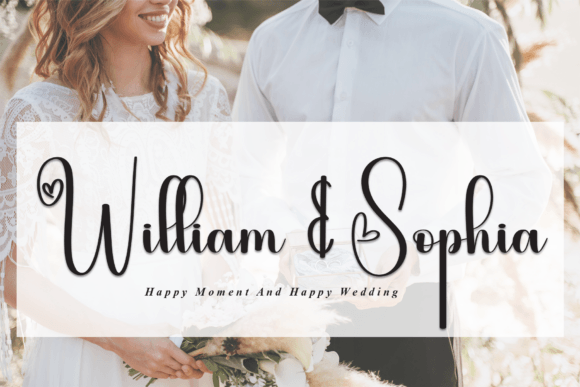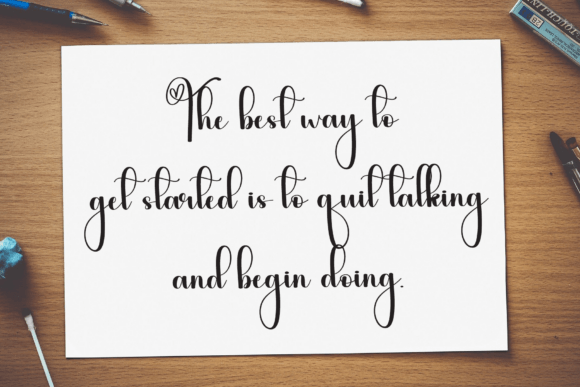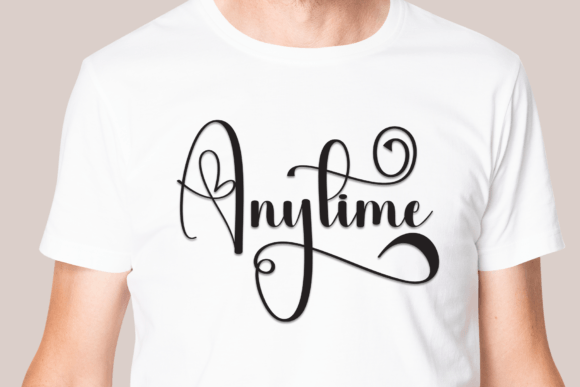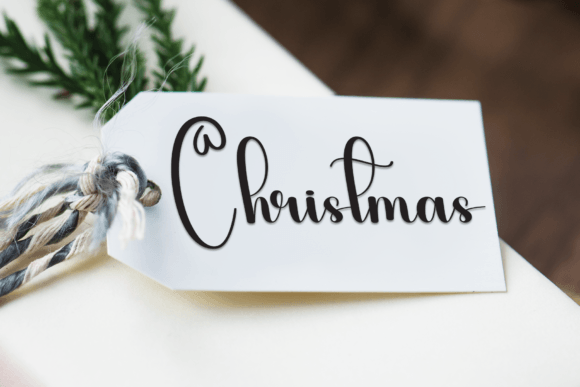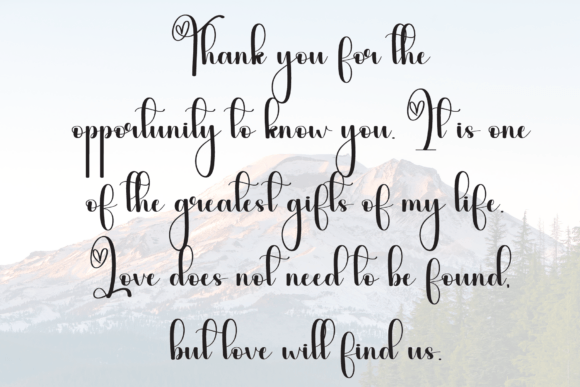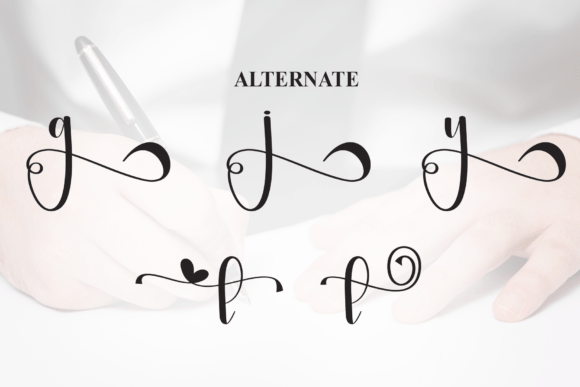
Introducing Father Signature Font: The Perfect Touch for Your Creative Projects
Are you looking for a font that can add a personal touch to your designs? Do you want to create beautiful wedding invitations, heartwarming cards, or any other creative project that stands out from the crowd? Look no further than Father Signature Font, a charming handcrafted typeface that personifies warmth, friendliness, and a dash of whimsical fun.
The Ideal Font for Creative Projects
Father Signature Font is the ideal touch for your creative projects, bringing a sweet, playful aesthetic that can effortlessly transform your creation into a visual delight. Its unique and enchantingly playful design makes it perfect for designers and crafters who want to add a joyful touch to their work. Whether you’re creating wedding invitations, birthday cards, or any other design that needs a personal touch, this font is sure to impress.
Unleash Your Creativity with Father Signature Font
With Father Signature Font, you can unleash your creativity and craft designs that truly stand out. This hand-written display font is perfect for anyone who wants to add a personal touch to their work. Its sweet and playful aesthetic can infuse a delightful vibe into any design, making it perfect for a wide range of creative projects. From beautiful wedding invitations to heartwarming cards, this font is sure to bring a smile to anyone’s face.
Key Features of Father Signature Font
• Handcrafted with love: Each letter has been carefully crafted to ensure a unique and personal touch.
• Warm and friendly aesthetic: The font’s sweet and playful design makes it perfect for creating heartwarming designs.
• Whimsical fun: The font’s playful aesthetic adds a dash of whimsy to any design.
• Perfect for creative projects: Whether you’re a designer or crafter, this font is perfect for adding a personal touch to your work.
Why Choose Father Signature Font?
There are many reasons why you should choose Father Signature Font for your creative projects. Here are just a few:
• Unique and eye-catching: This font is sure to grab attention and make your designs stand out from the crowd.
• Versatile: The font can be used for a wide range of creative projects, from wedding invitations to birthday cards.
• High-quality: The font is high-quality and carefully crafted to ensure a professional finish.
Tips for Using Father Signature Font
Here are a few tips for using Father Signature Font in your creative projects:
• Use it for headings: The font is perfect for headings and titles, adding a personal touch to your designs.
• Experiment with colors: The font looks great in a range of colors, so don’t be afraid to experiment and find the perfect shade for your design.
• Pair it with other fonts: The font pairs well with other fonts, so feel free to get creative and try out different combinations.
In conclusion, Father Signature Font is the perfect touch for your creative projects. Its unique and playful aesthetic makes it perfect for designers and crafters who want to add a personal touch to their work. With its handcrafted design, warm and friendly aesthetic, and whimsical fun, this font is sure to bring a smile to anyone’s face. So why not give it a try and see how it can transform your designs?
Introducing Father Signature Font: The Epitome of Sophistication and Authority
In the realm of typography, few fonts manage to convey the perfect blend of authority, elegance, and personality. Father Signature Font is one such exceptional typeface that embodies the essence of a high-end executive signature. Designed to exude confidence, sophistication, and a deep sense of personal touch, Father Signature is an ideal choice for designers and crafters looking to infuse their projects with a sense of luxury and timeless charm.
The Characteristics of Father Signature Font
Father Signature Font is distinguished by its bold and confident downstrokes, which lend an air of authority and gravitas to any project. The font’s sweeping loops and fluid connections contribute to its graceful, sophisticated appearance, making it perfect for applications where a sense of elegance and refinement is paramount. The rhythmic flow of Father Signature is both visually appealing and highly legible, ensuring that it communicates effectively across various mediums.
Father Signature Font is a bold, sophisticated, and deeply personal handwritten script that brings a sense of authority, elegance, and timeless charm to any design project. Its thick, confident downstrokes, graceful loops, and rhythmic flow make it a premier choice for designers and crafters looking to infuse their work with a touch of luxury and prestige. Whether you’re working on masculine branding, luxury wedding stationery, legal or financial service logos, or personalized watermarks for photography, Father Signature is an exceptional choice that delivers a grounded, established aesthetic. Embrace the elegance and authority of Father Signature Font in your next project and experience the transformative power of typography.